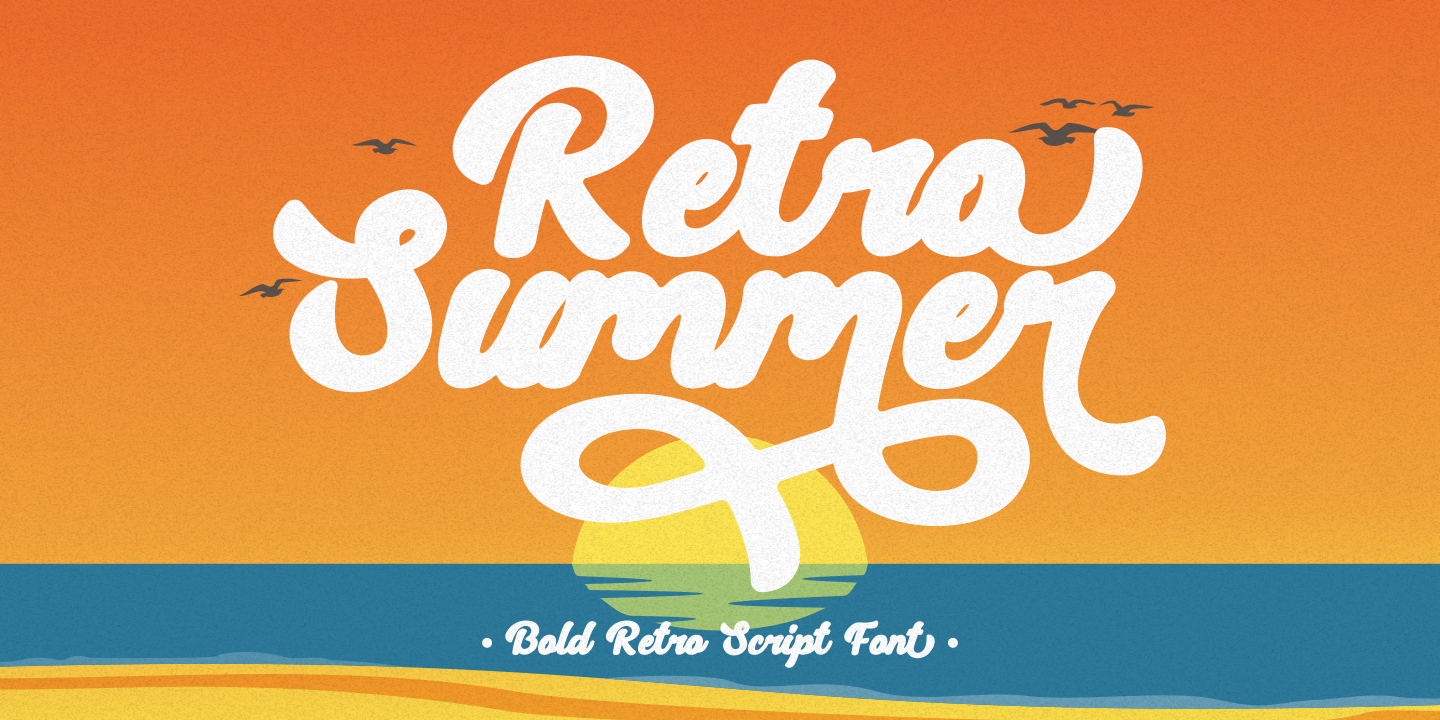
The Retro Summer Font is incredibly versatile, making it an excellent choice for a wide range of design projects that aim to capture the carefree, vibrant, and nostalgic spirit of classic summer days. Imagine it gracing posters for beach parties, adding a playful and sunny feel to apparel designs for vacation brands, or bringing an authentic vintage vibe to ice cream parlor menus. It's also perfect for crafting unique logos for surf shops, designing cheerful invitations for pool parties, or creating engaging visuals for social media campaigns focused on travel, leisure, and a bygone era of endless sunshine. Its often bubbly, groovy, or distinctly hand-drawn letterforms make it ideal for anything that needs to convey warmth, fun, and a touch of timeless cool.
What makes the Retro Summer Font so exciting is its ability to instantly infuse any design with a burst of joyful energy and a sense of blissful nostalgia. It's not just a typeface; it’s a visual vacation that evokes memories of road trips, roller skates, and endless sunny afternoons. Its unique letterforms, often characterized by soft edges, playful bounces, and a laid-back disposition, stand out, offering a refreshing blend of vintage charm and a lively energy. This font provides a dynamic, impactful visual texture that adds depth, fun, and an undeniable sense of nostalgic cool to any design, ensuring your message is not just seen, but truly felt with a relaxed, happy rhythm.
The Retro Summer Font family often includes various stylistic options to enhance its versatility for creative applications. While specific variations can differ, you can typically expect to find regular, bold, and possibly even outline or distressed versions, each maintaining the core retro and summery aesthetic while offering subtle distinctions for different design needs. Some variations might also feature unique alternate characters, ligatures, or stylistic sets that play with the era's common design motifs, further emphasizing its distinctive, historical appeal and providing ample creative freedom for impactful display uses.
For those looking to infuse their designs with a strong sense of retro charm, vibrant energy, and a touch of sun-kissed cool, the Retro Summer Font Free Download is an invaluable resource. This distinctive typeface, with its timeless appeal and captivating visual impact, will undoubtedly elevate your creative projects and make a truly memorable impression.